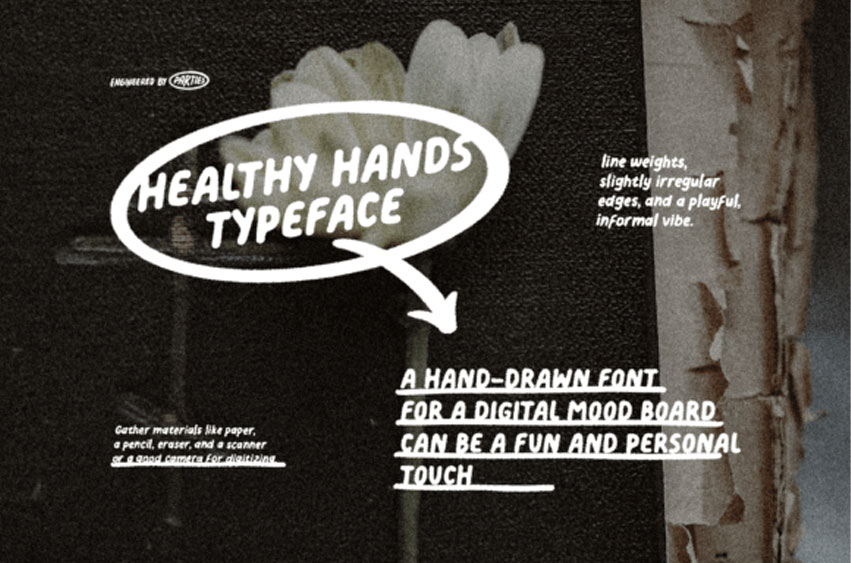
Healthy Hands Font
Healthy Hands Font is a hand-drawn font that can breathe life and personality into your projects. By embracing the imperfections and individuality of hand-drawn letters, you elevate your digital mood boards from the ordinary to the extraordinary.
So, next time you embark on a design journey, consider the magic that hand-drawn fonts can bring to your digital canvas.